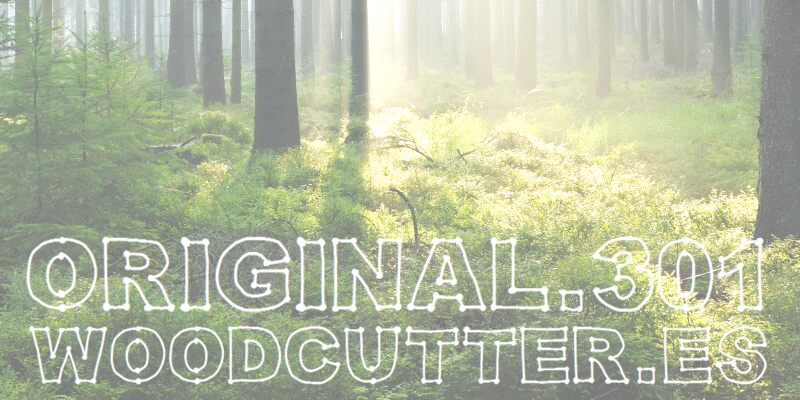
Original 301
Original 301 is a bold, outlined display font designed by Woodcutter Manero. Its distinctive aesthetic evokes a sense of rugged, industrial charm. The thick, dynamic strokes and angular, stencil-like form lend the typeface a striking, eye-catching presence. This font excels at commanding attention, making it well-suited for bold headings, impactful branding, and attention-grabbing design elements.
Its versatility allows it to thrive in a variety of contexts, from editorial layouts to packaging design, seamlessly blending form and function.